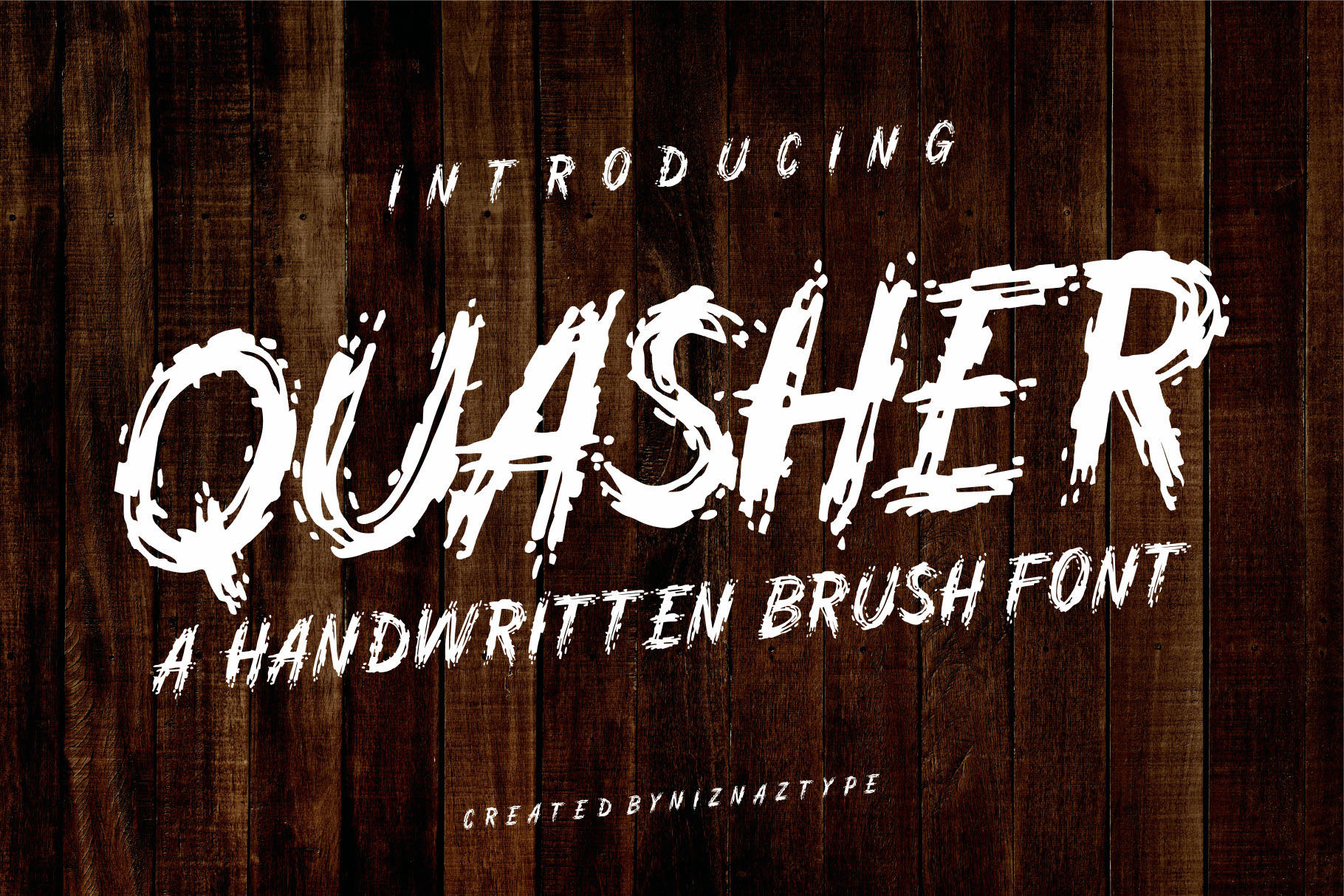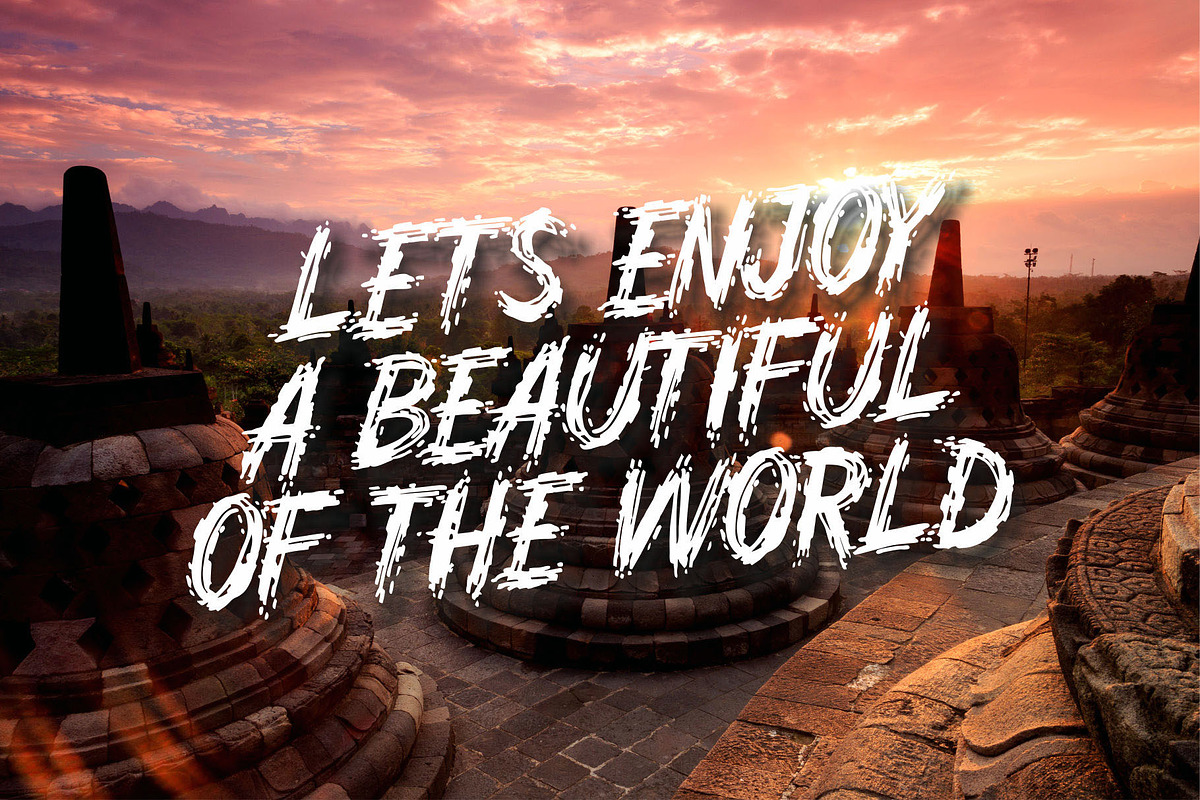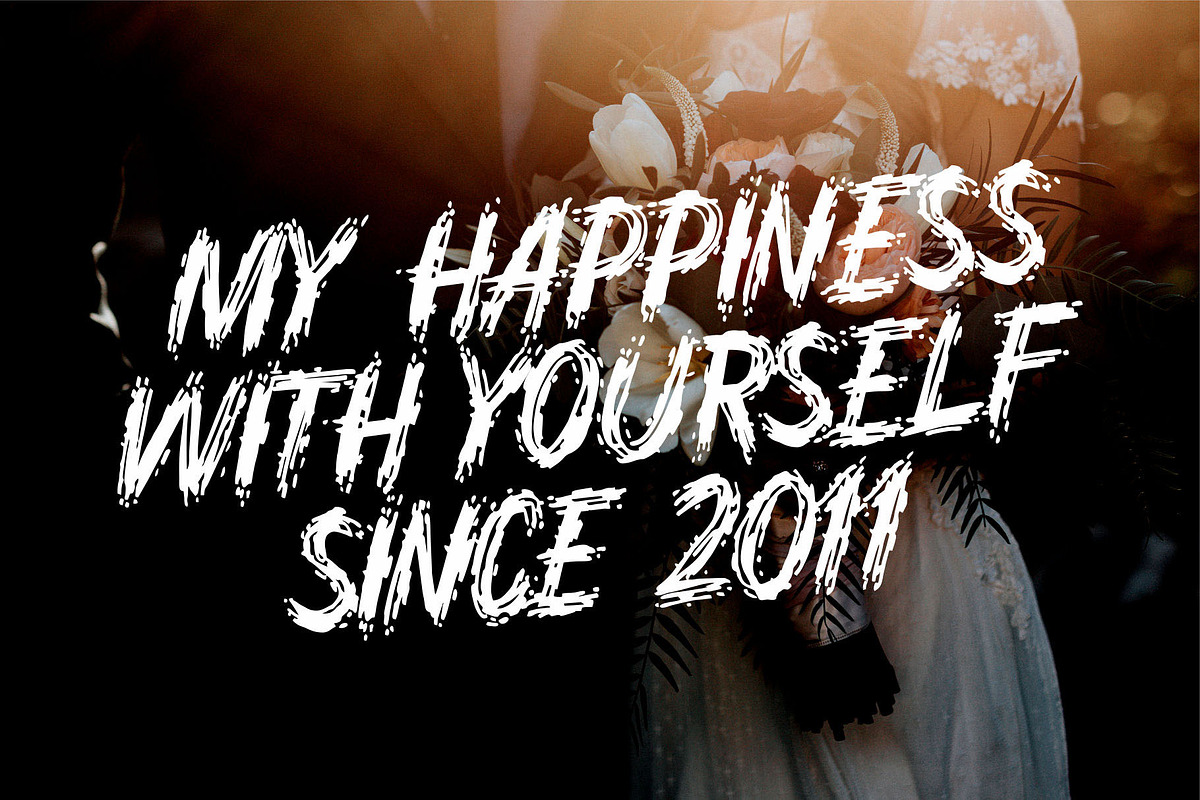
Quasher - A Brush Font
Introducing a handwritten brush font. I called Quasher typeface. This font created by hand writing style. Suitable for headline, tittle, advertisement, t-shirt and others. Graphic design themes like gothic, blackletter, fine art, painting, movie tittle, also are very comfortable to use Quasher font. There are three formats, TTF OTF and WOFF Enjoy it with my font product.